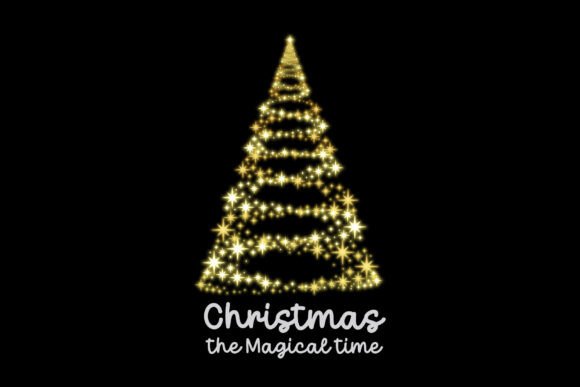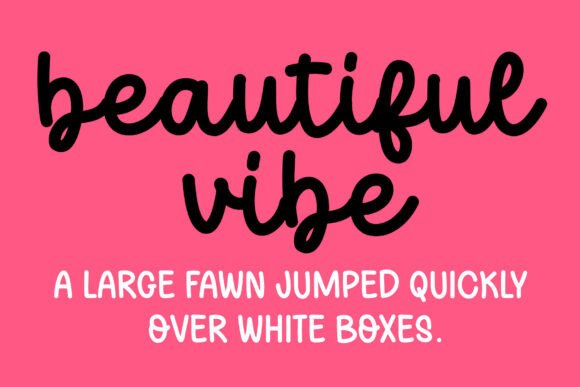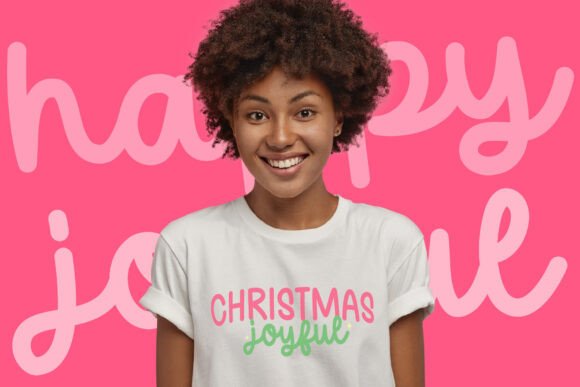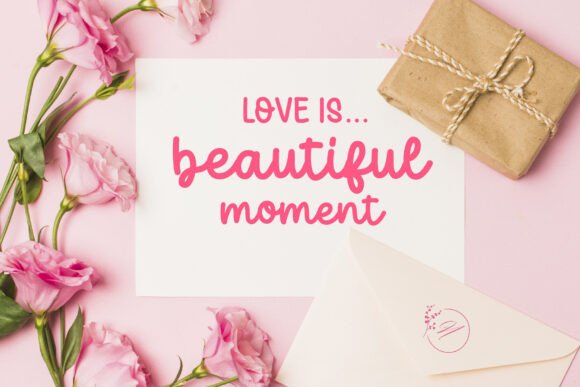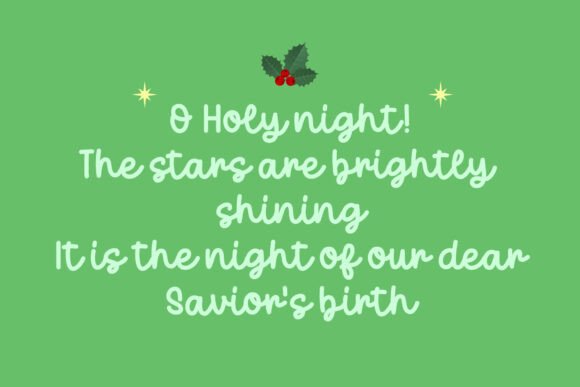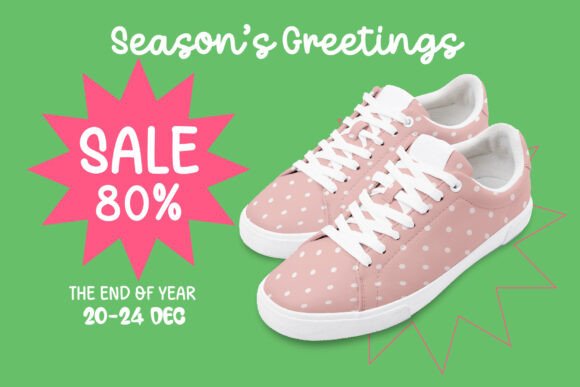
Introducing Christmas Joyful Font: Spread Cheer and Merry Making this Holiday Season
As the year comes to a close, and the festive season approaches, designers and crafters are on the lookout for the perfect typography to infuse their projects with a dash of holiday cheer. Look no further than Christmas Joyful, a delightful, handcrafted font that’s sure to become your go-to for all your Christmas design needs. This charming font embodies the warmth and merriment of the season, making it an excellent addition to your font collection.
A Distinctive and Organic Vibe
Christmas Joyful boasts a unique, handcrafted aesthetic that sets it apart from more generic fonts. Its organic vibe lends a personal touch to any design, making it perfect for those looking to create something truly special. The font’s distinctive style is sure to capture the essence of the festive season, transporting your audience to a world of wonder and enchantment.
Unleash Your Creativity with Versatility
One of the standout features of Christmas Joyful is its inherent versatility. This adaptable font can be used across a broad spectrum of designs, from traditional Christmas cards and decorations to modern digital projects and branding. The only limit to what you can create with Christmas Joyful is your imagination, making it an excellent choice for designers and crafters looking to push the boundaries of their creativity.
Effortlessly Infuse Cheerful Friendliness
With Christmas Joyful, adding a dose of cheerful friendliness to your designs has never been easier. The font’s authentic, singular style effortlessly conveys the joy and warmth of the festive season, making it perfect for a wide range of applications. Whether you’re creating holiday cards, gift tags, or festive digital graphics, Christmas Joyful is sure to bring a smile to the faces of your audience.
Christmas Joyful is a dream come true for designers and crafters looking to add a personal touch to their holiday projects. The font’s unique style and versatility make it an excellent choice for:
- Gift tags and wrapping paper
- Festive digital graphics and social media posts
- Branding and packaging for holiday-themed products
- DIY craft projects, such as knitting or sewing patterns
Tips for Getting the Most Out of Christmas Joyful
To make the most of this delightful font, here are a few tips to keep in mind:
- Pair Christmas Joyful with complementary fonts to create visually appealing typography
- Don’t be afraid to get creative and try out new and innovative design ideas
- Use Christmas Joyful to add a personal touch to your holiday projects, making them truly special and unique
Christmas Joyful is a delightful, handcrafted font that’s sure to bring cheer and merriment to your holiday designs. With its distinctive and organic vibe, versatility, and cheerful friendliness, this font is the perfect addition to your font collection. Whether you’re a designer or crafter, Christmas Joyful is sure to inspire you to create truly exceptional designs that capture the essence of the festive season. So why wait? Embrace the warmth and merriment of Christmas Joyful and get creative this holiday season!